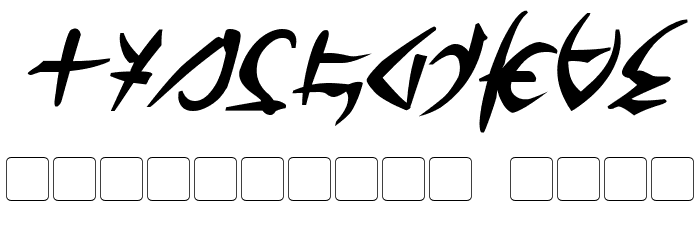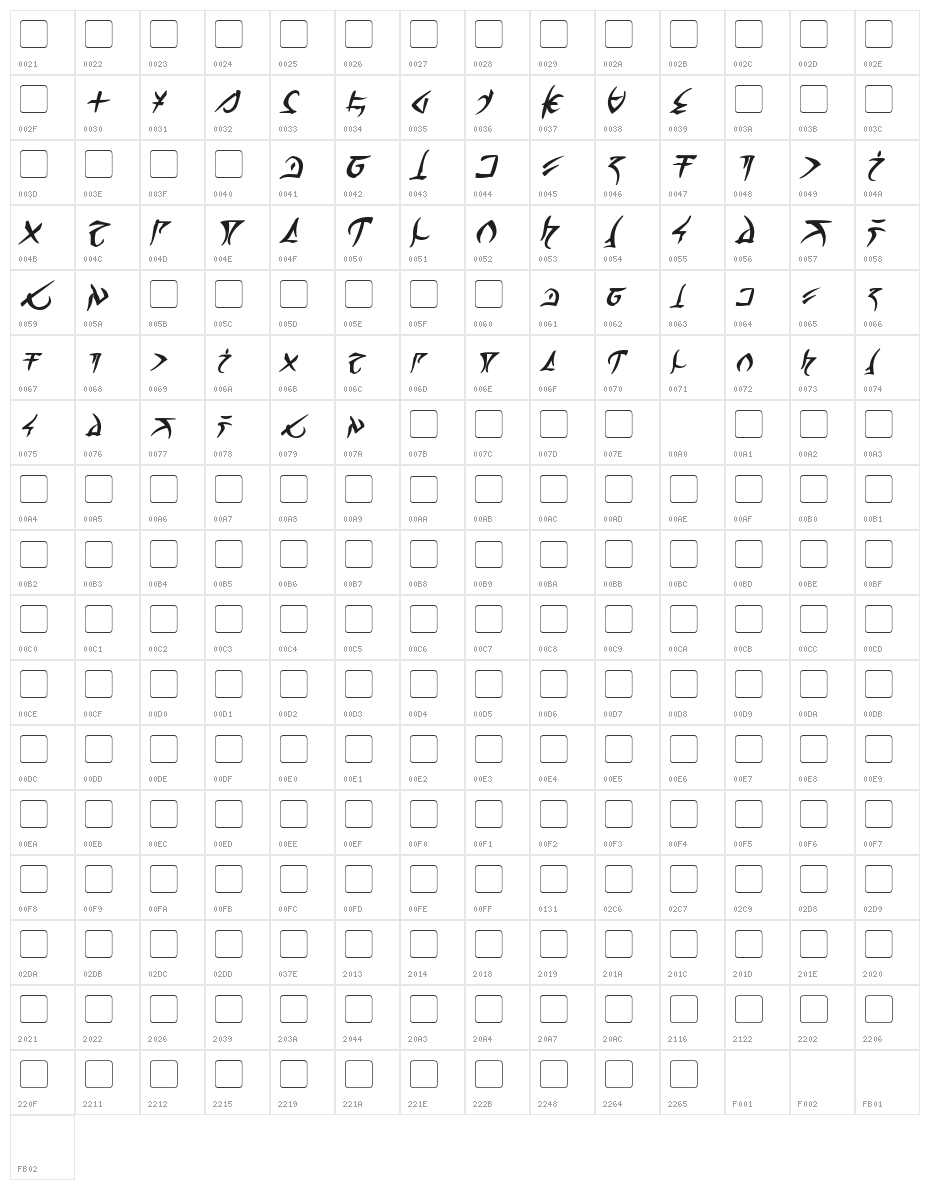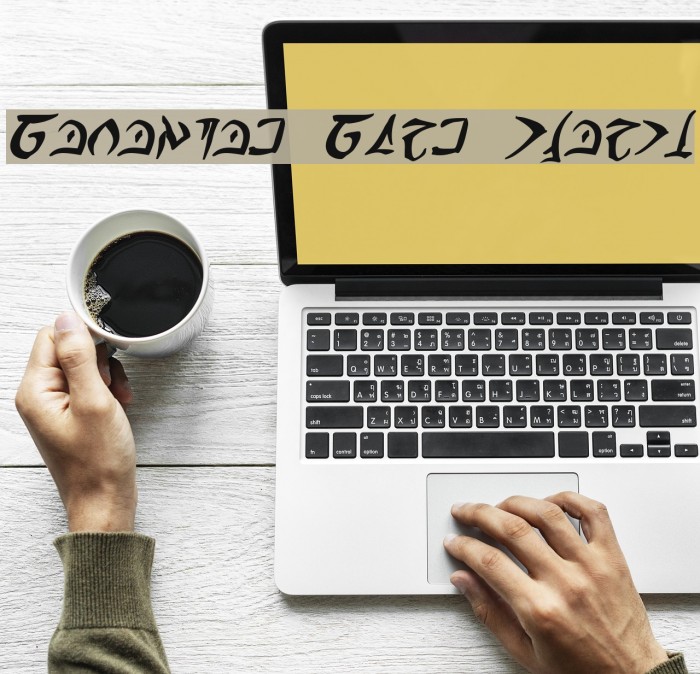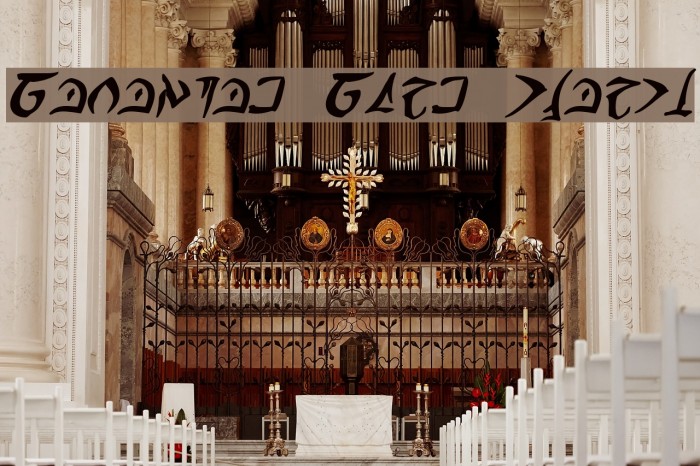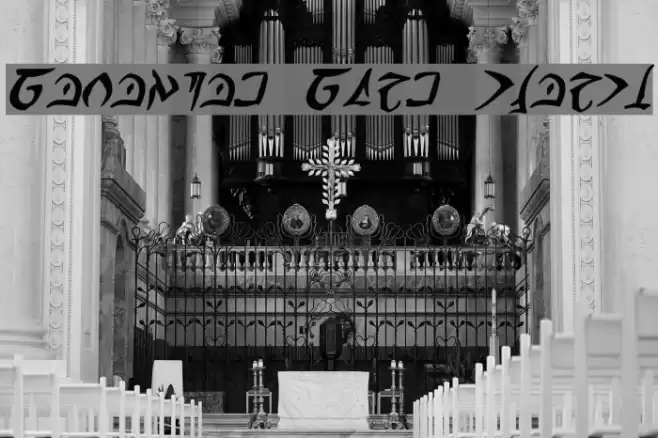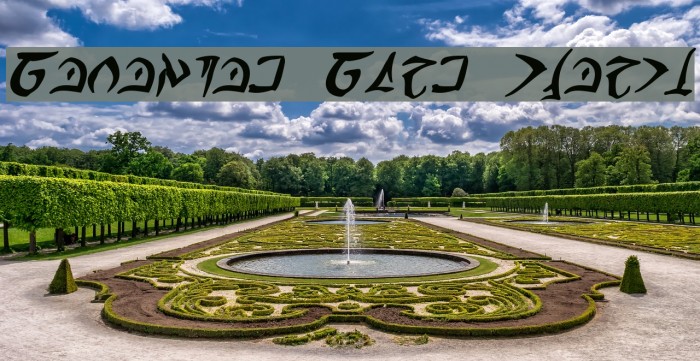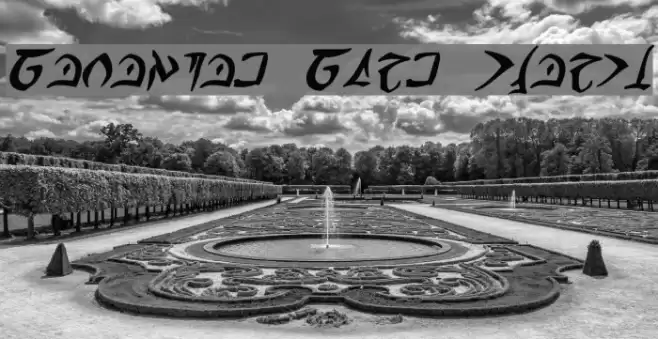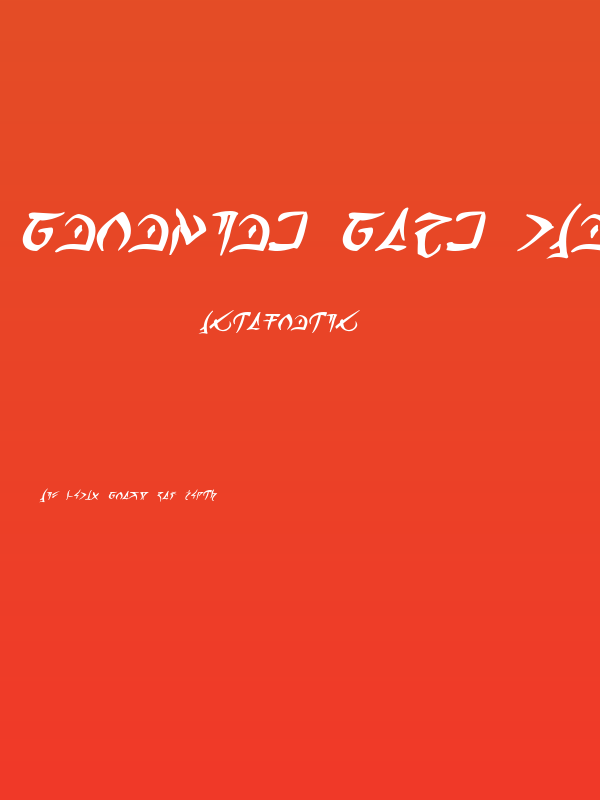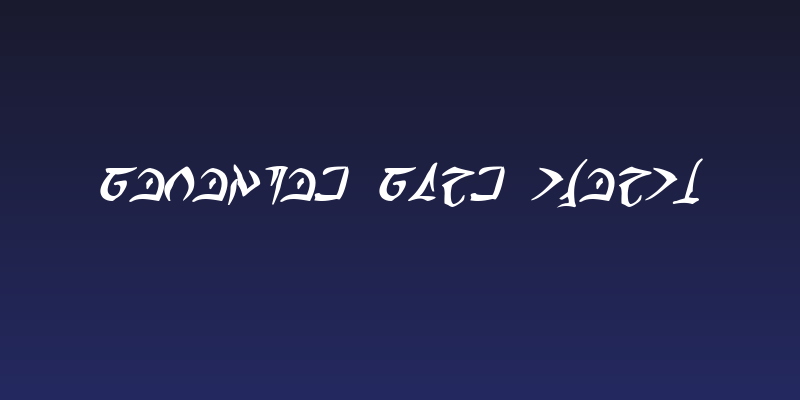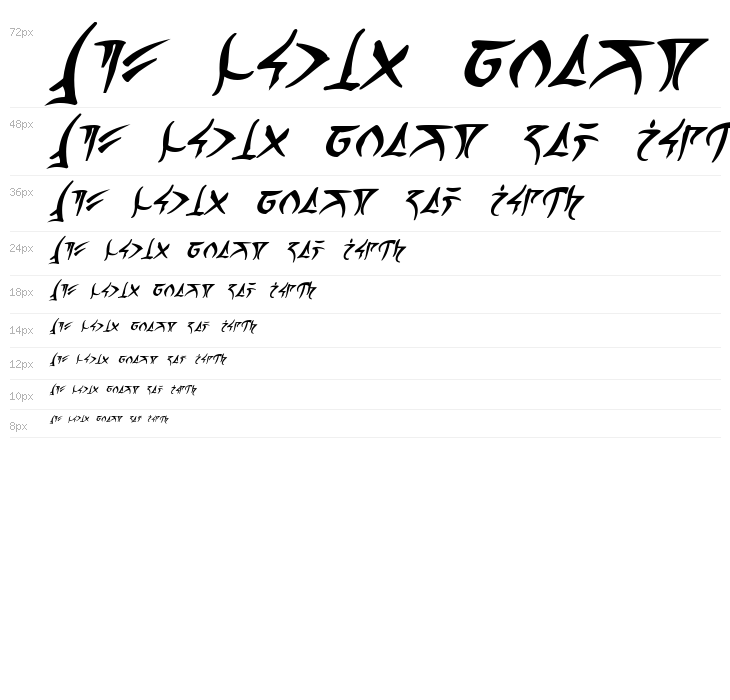
Barazhad Bold Italic Font
Barazhad Bold Italic Description
This font features a bold and italicized style with a distinct, angular design. The characters are sharp and pointed, giving it a futuristic and somewhat aggressive appearance. The strokes are thick and consistent, providing a strong visual impact. The font has a unique, almost alien-like aesthetic, making it stand out for creative and unconventional projects. The uppercase and lowercase letters maintain a consistent style, with the special characters following the same design principles. This font is ideal for projects that require a bold and distinctive look.
| Overall Style | Futuristic, Decorative |
| Proposed Projects | Ideal for sci-fi themed designs, video game graphics, movie posters, and branding for tech companies. |